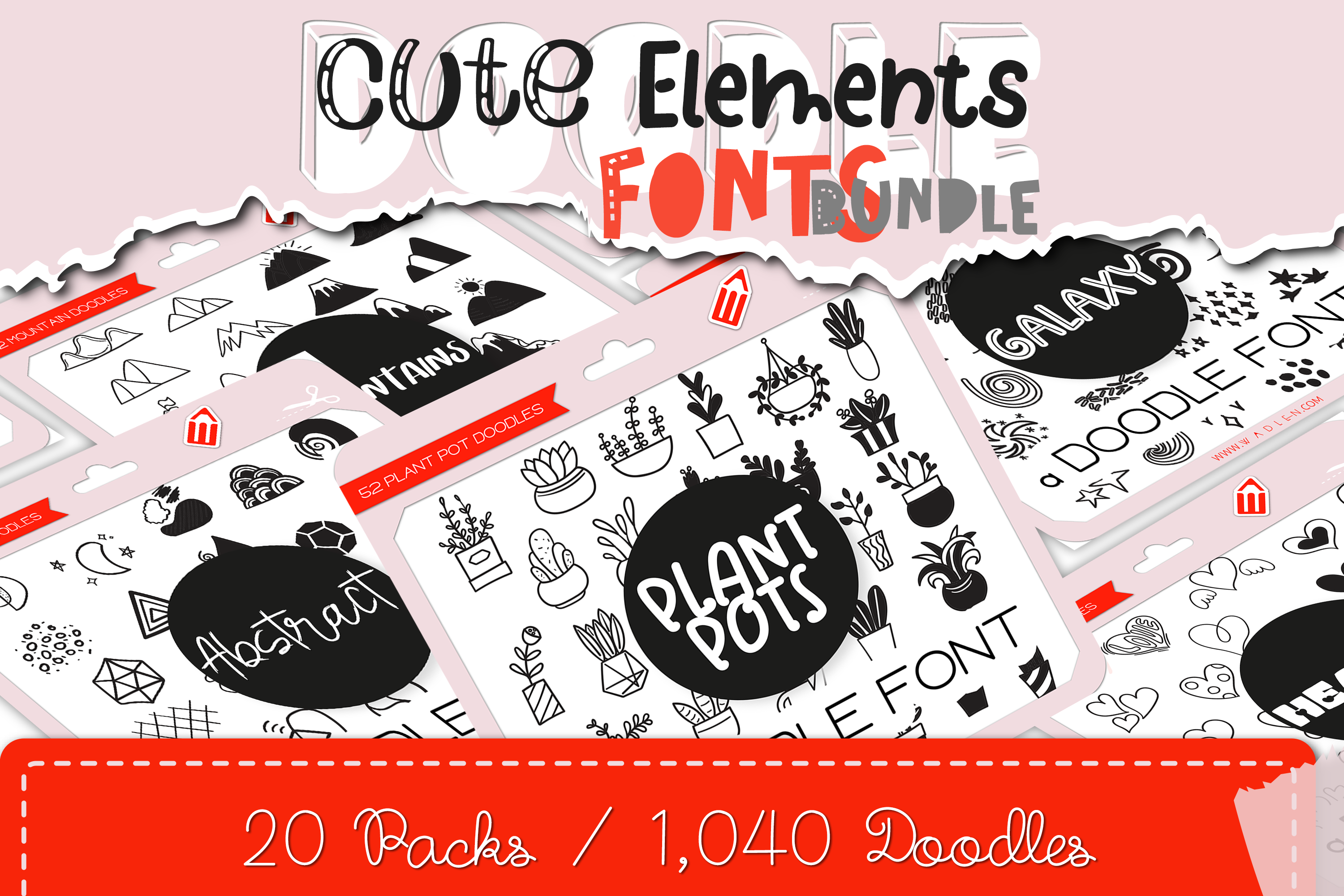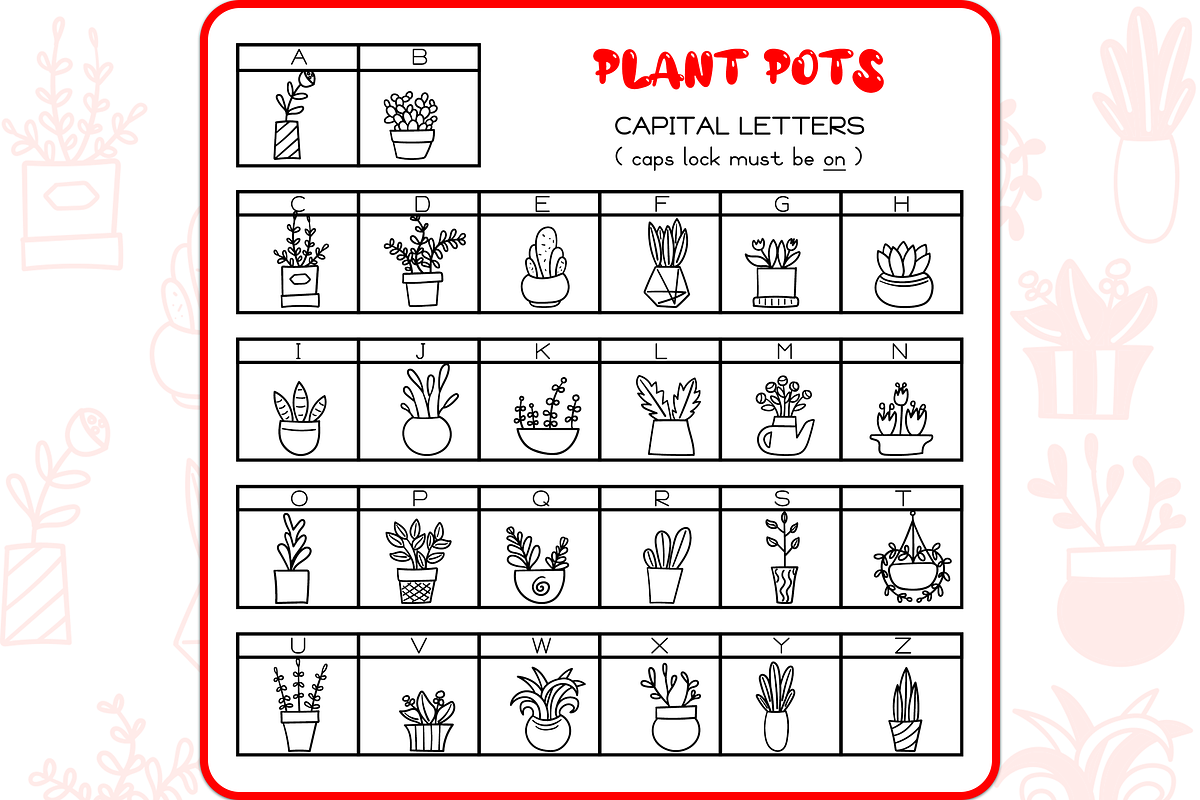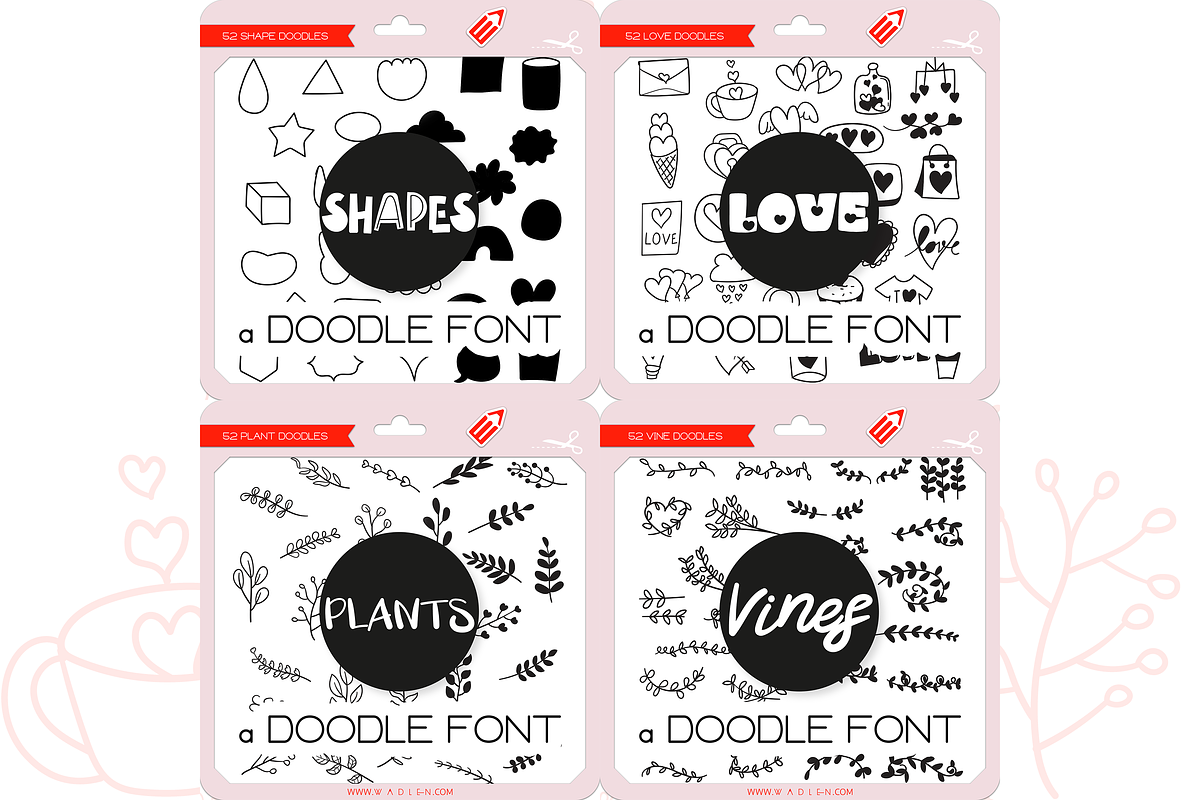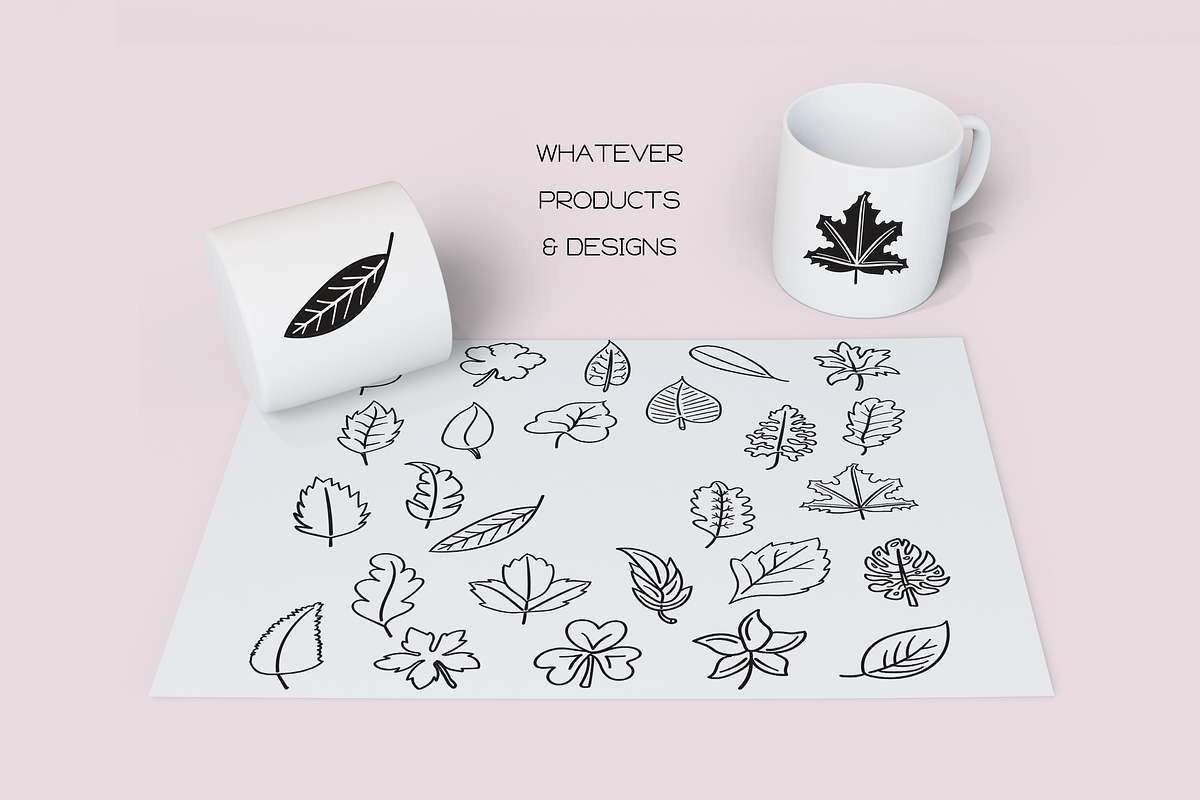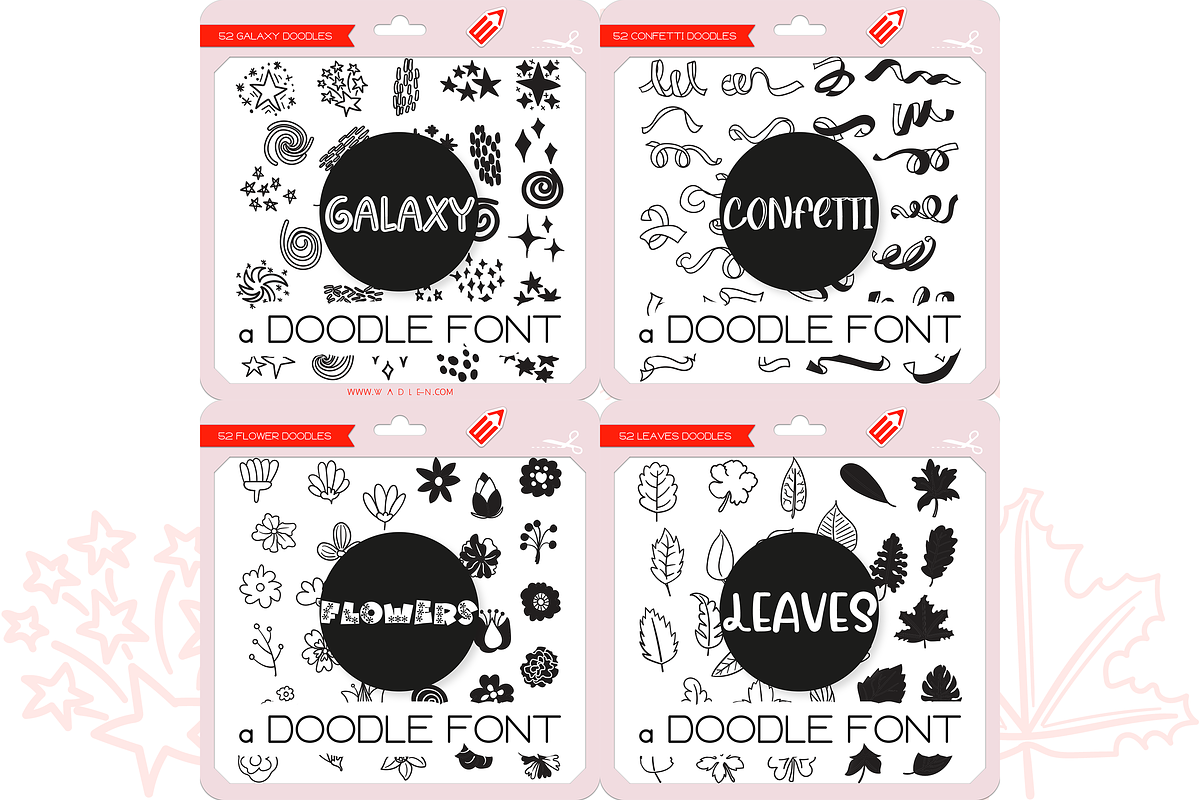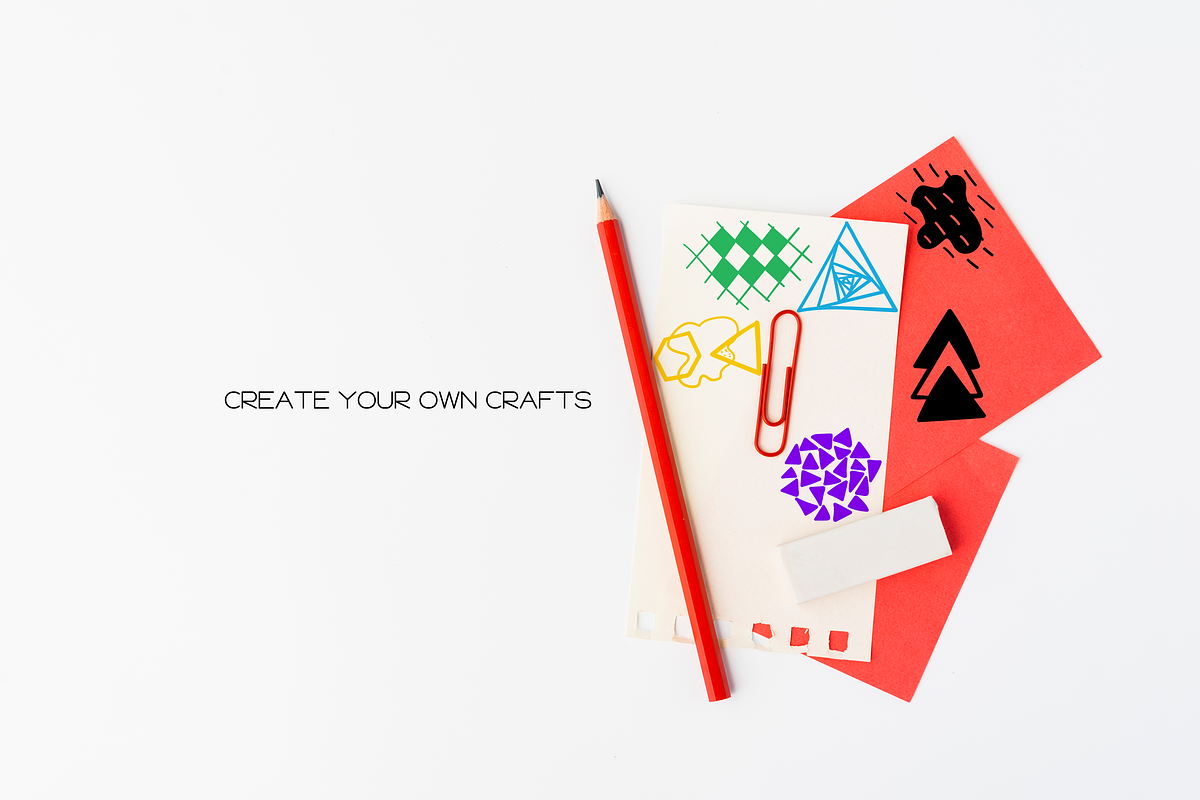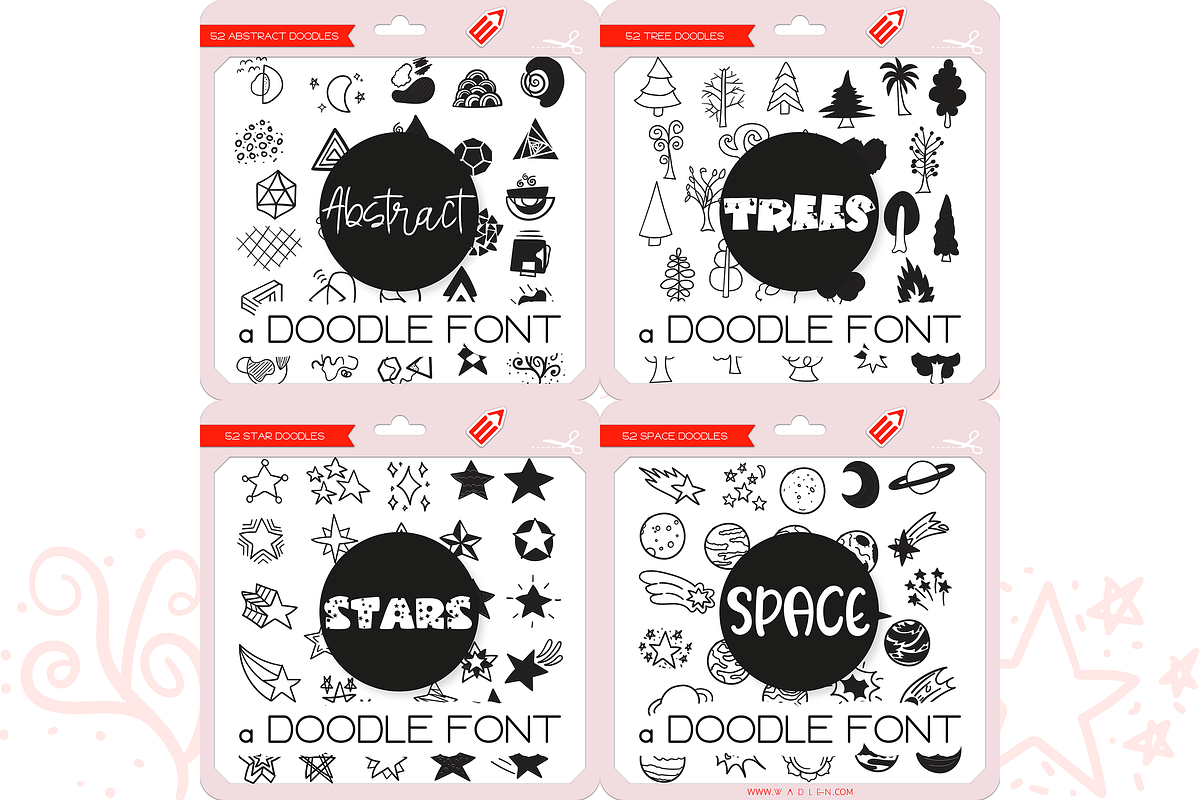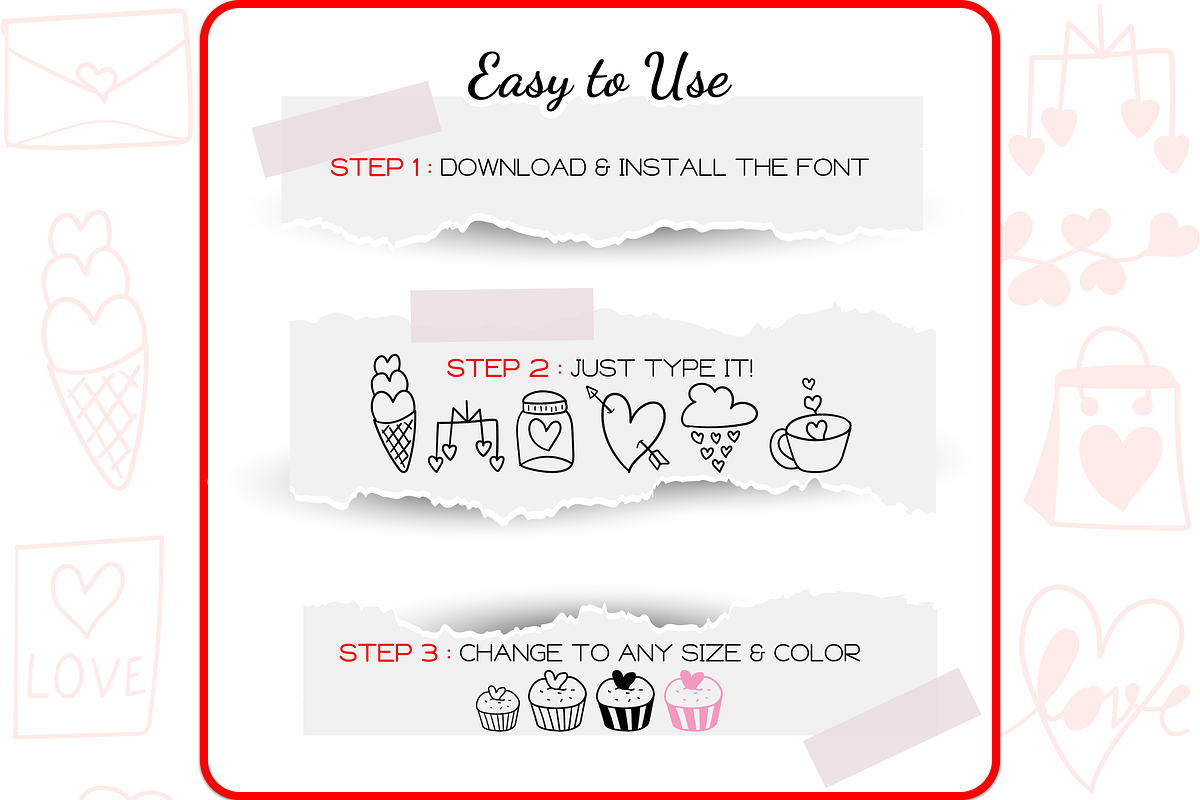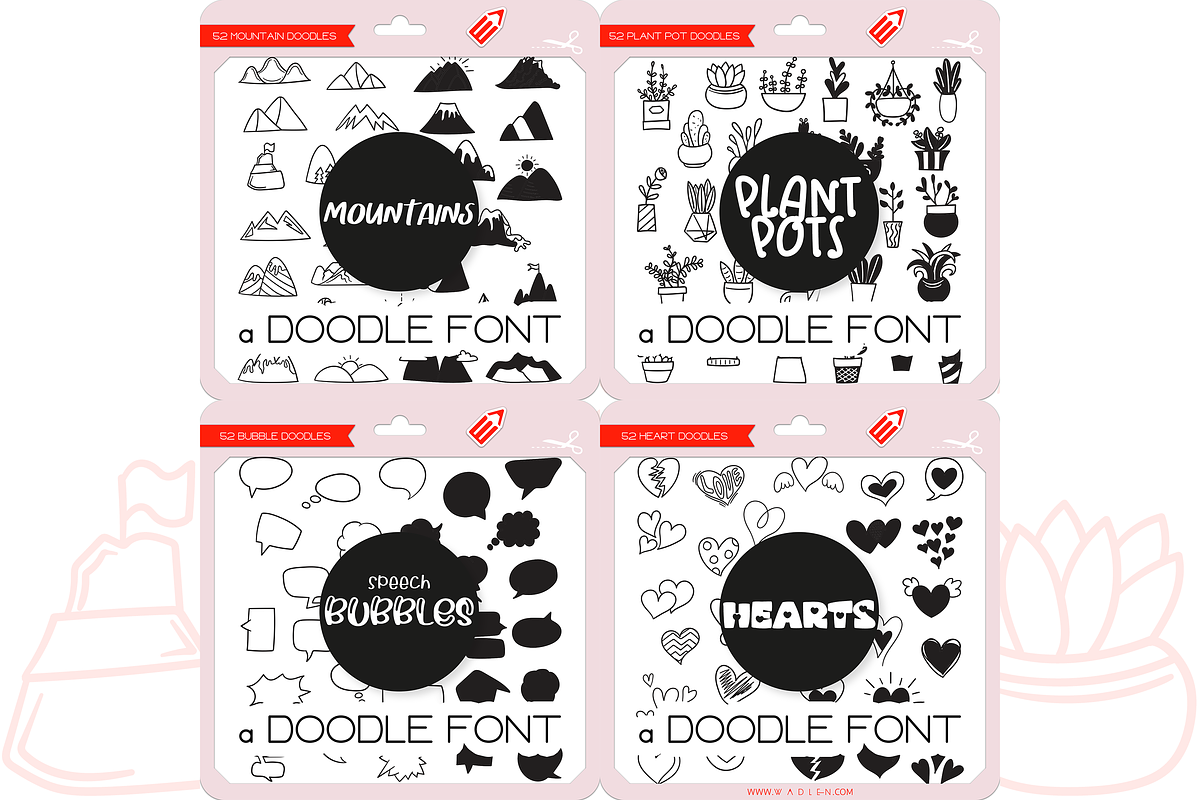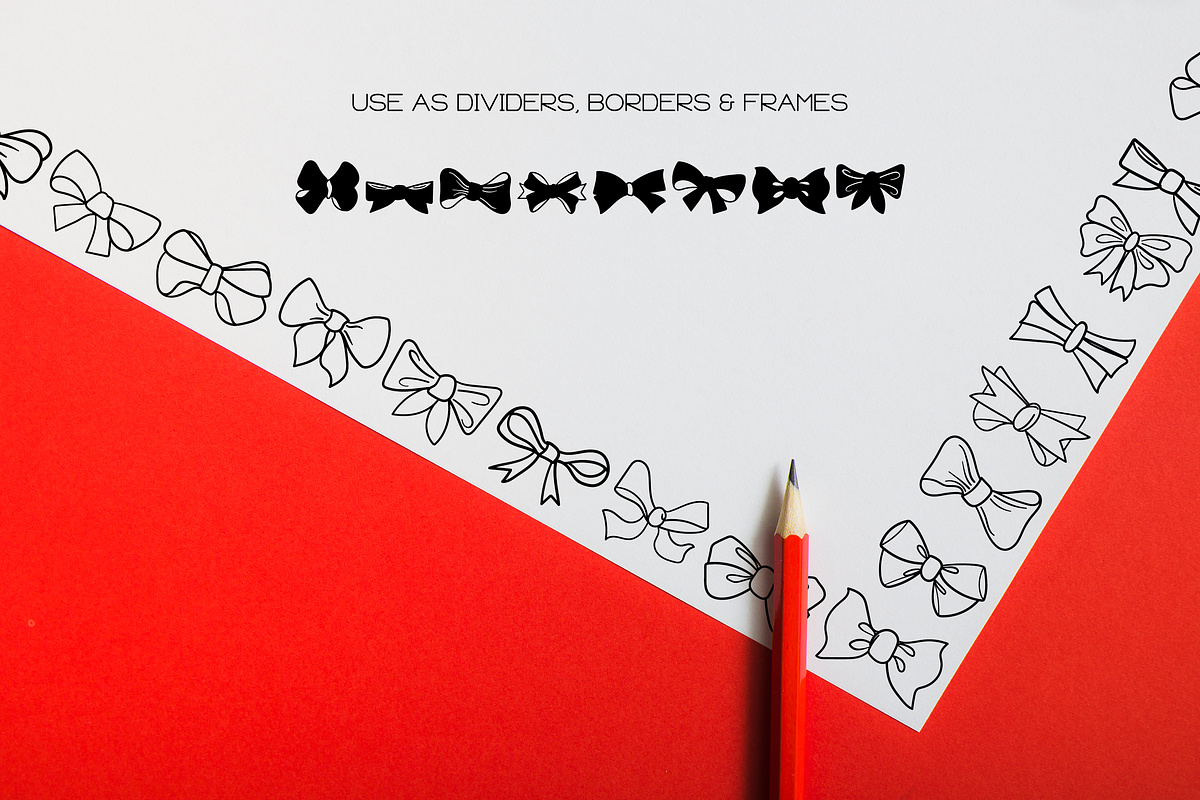
Cute Element Fonts Bundle
The Cute Element Fonts Bundle is here with 20 themes of premium cute & sweet handwritten doodle fonts. This bundle has a wide range of themes, Abstract, Arrows, Bows, Clouds, Confetti, Flowers, Galaxy, Hearts, Leaves, Love, Mountains, Plant Pots, Plants, Rainbows, Shapes, Space, Speech Bubbles, Stars, Trees, Vines.
Cute Elements Bundle is perfectly suited for Quotes, Branding, Logos, Greeting Cards, Invitations, Stationery Design, Children's designs, T-shirts, Packaging designs, Poster, Typographic designs, Papercrafts, Digital crafts, and so much more!
- 52 Plant Pot Doodles
- 52 Bow Doodles
- 52 Confetti Doodles
- 52 Flower Doodles
- 52 Abstract Doodles
- 52 Mountain Doodles
- 52 Tree Doodles
- 52 Love Doodles
- 52 Shape Doodles
- 52 Speech Bubble Doodles
- 52 Arrow Doodles
- 52 Rainbow Doodles
- 52 Vine Doodles
- 52 Cloud Doodles
- 52 Heart Doodles
- 52 Galaxy Doodles
- 52 Leave Doodles
- 52 Space Doodles
- 52 Star Doodles
- 52 Plant Doodles